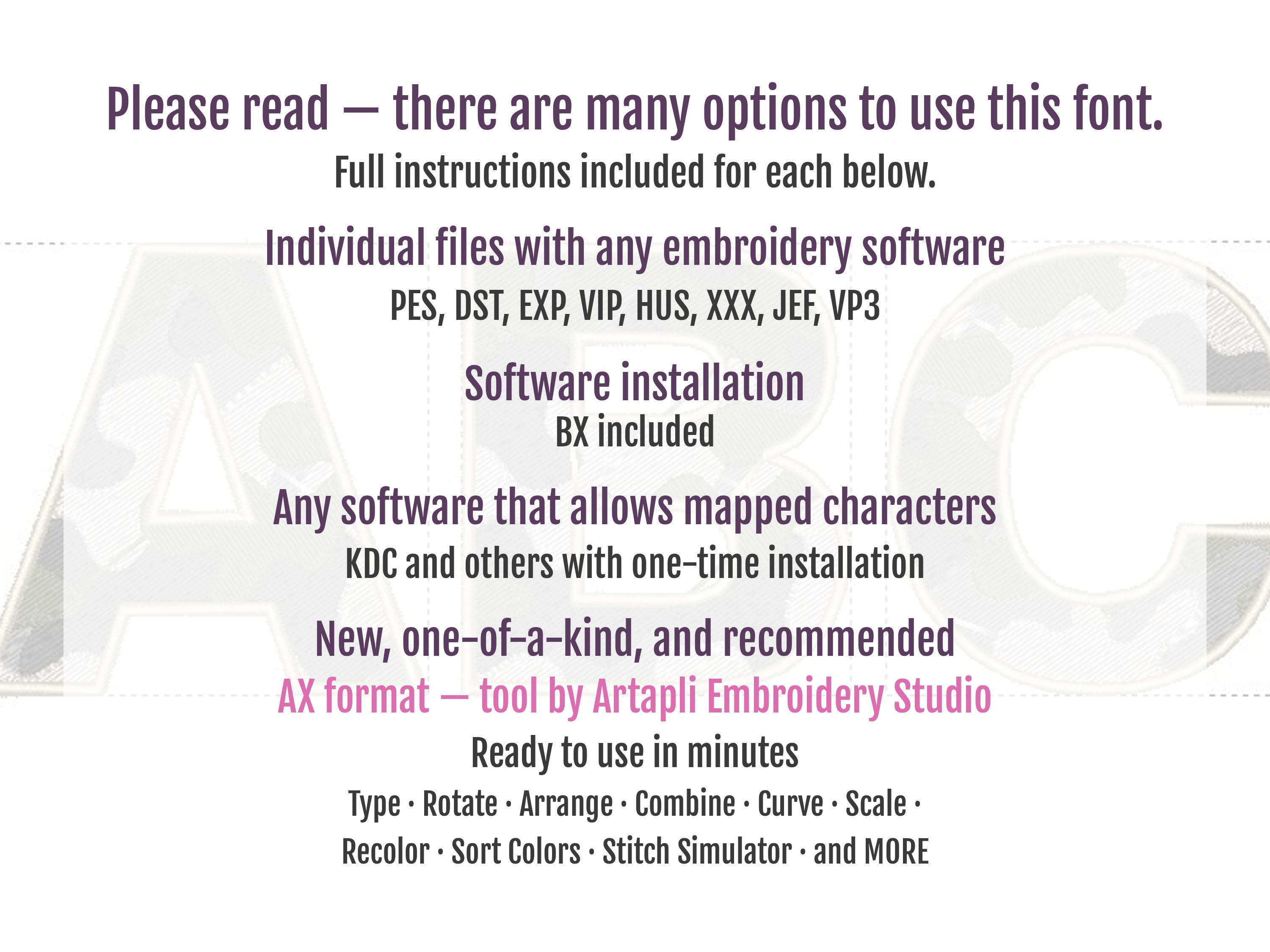
Camo, Camouflage Font machine embroidery designs INSTANT DOWNLOAD Letters A-Z and numbers 0-9, assorted sizes military army camouflage font
All letters have 5 colors